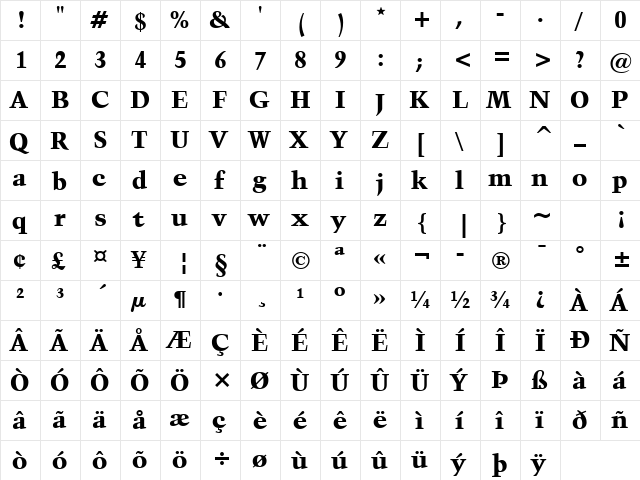
Kuenst480 Blk BT Black
Design Context for Kuenst480 Blk BT Typeface
Kuenst480 Blk BT offers clean, dependable letterforms without strong stylistic allegiance, making it a practical choice for designers who need flexibility.
Pro Tip: Use Kuenst480 Blk BT in both headline and body roles to test its range before committing to a single application.